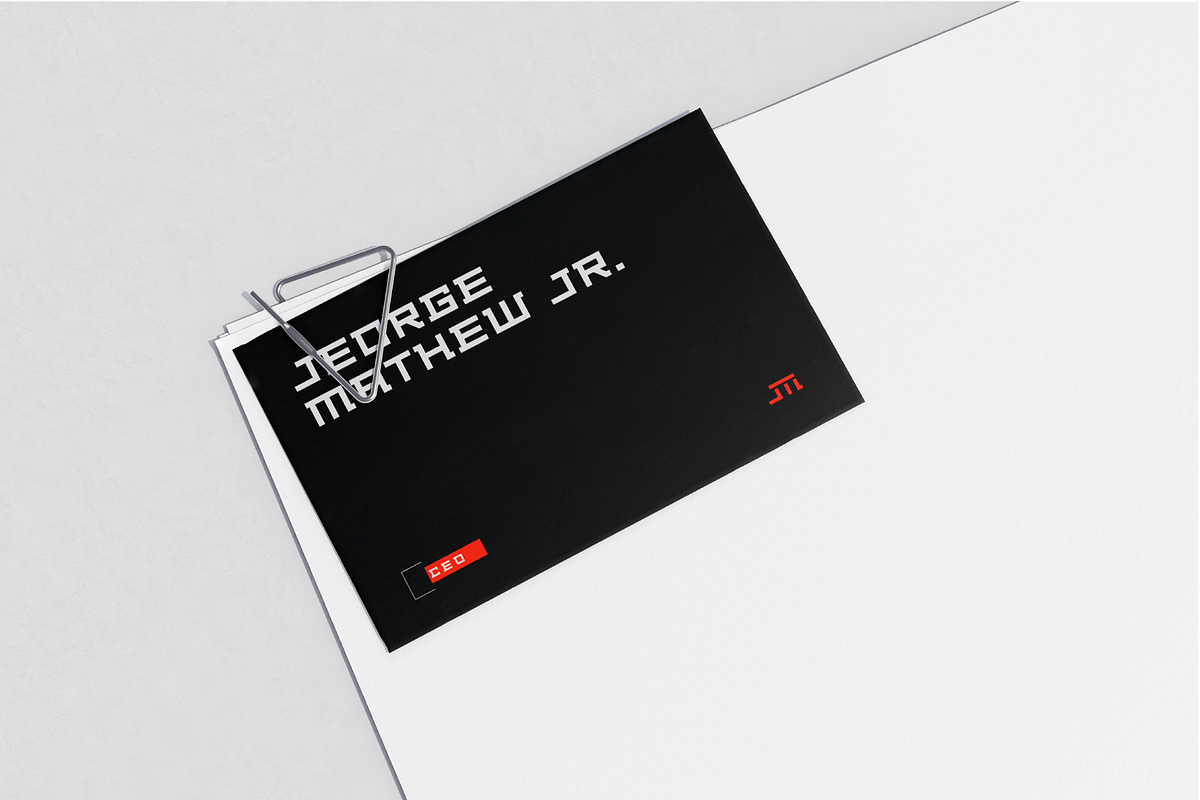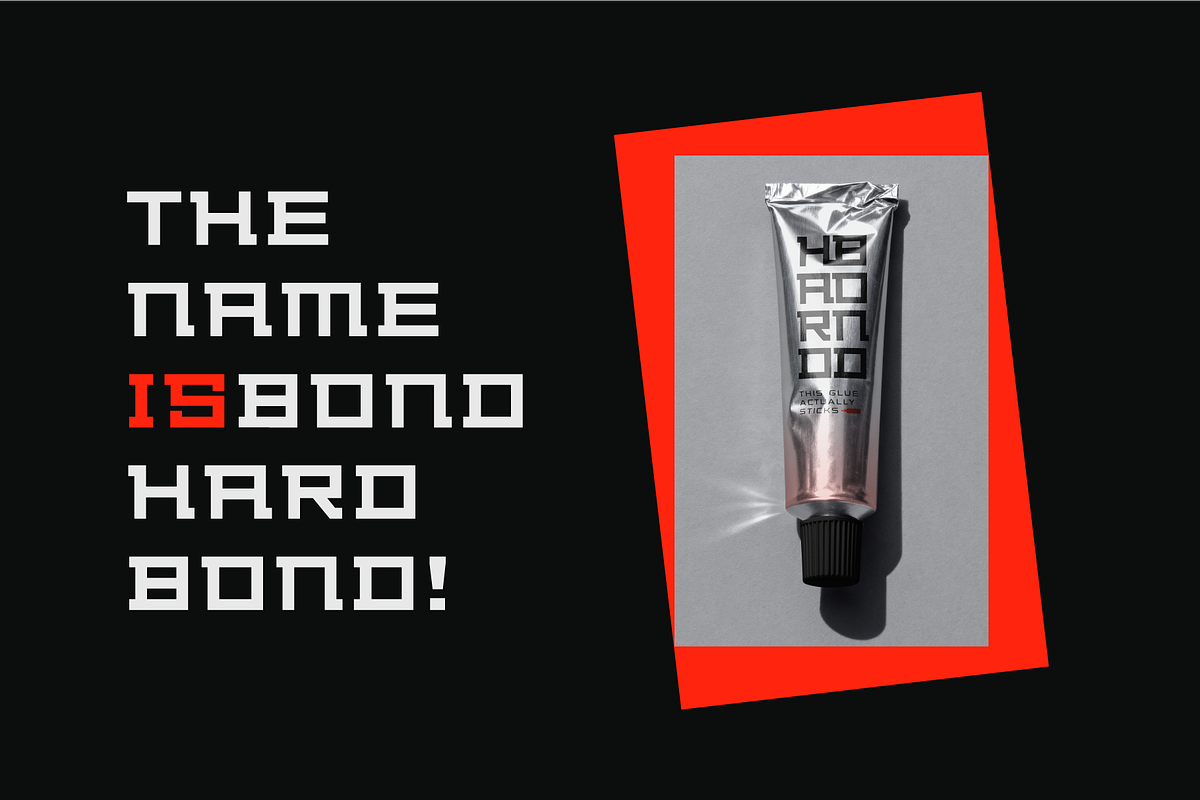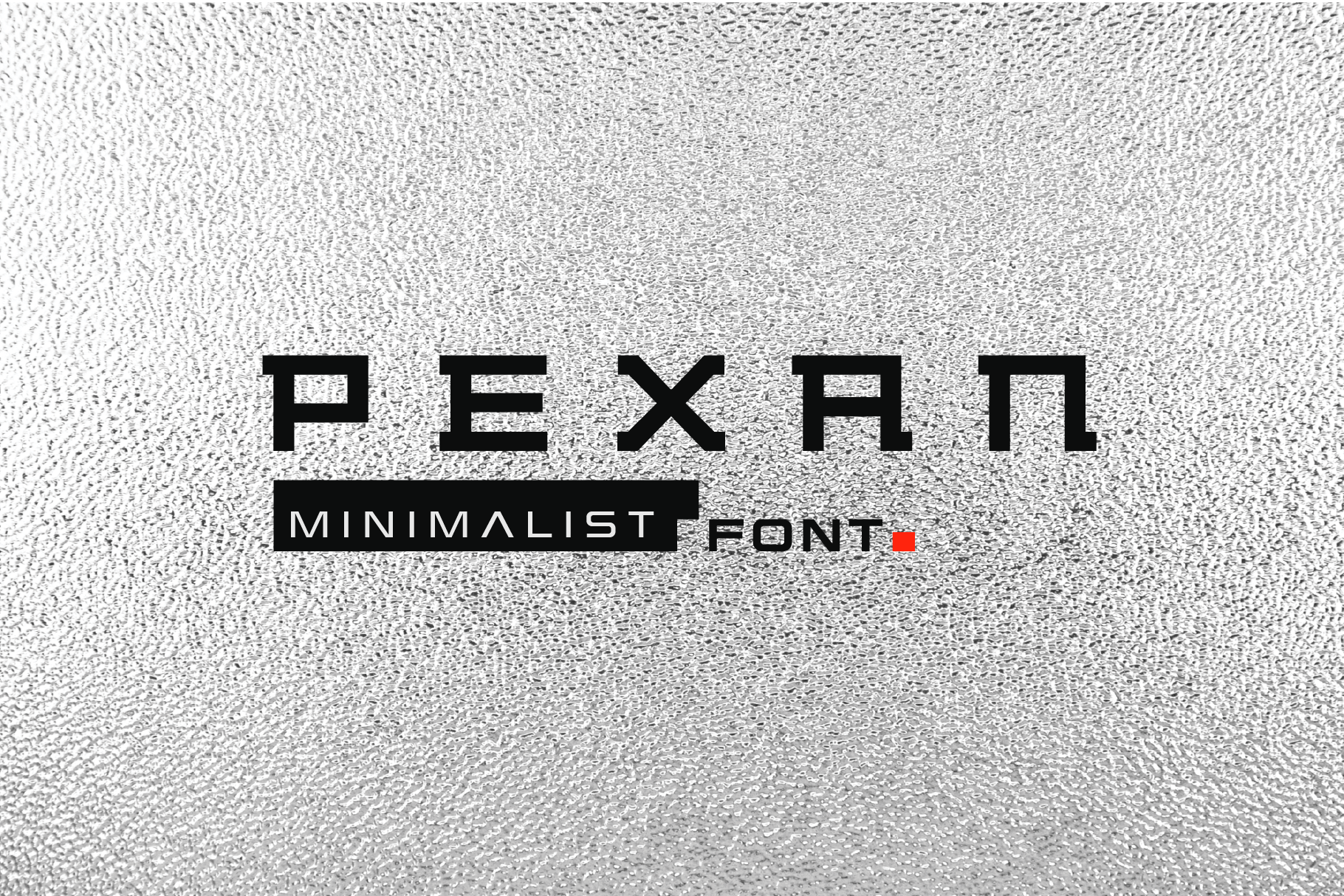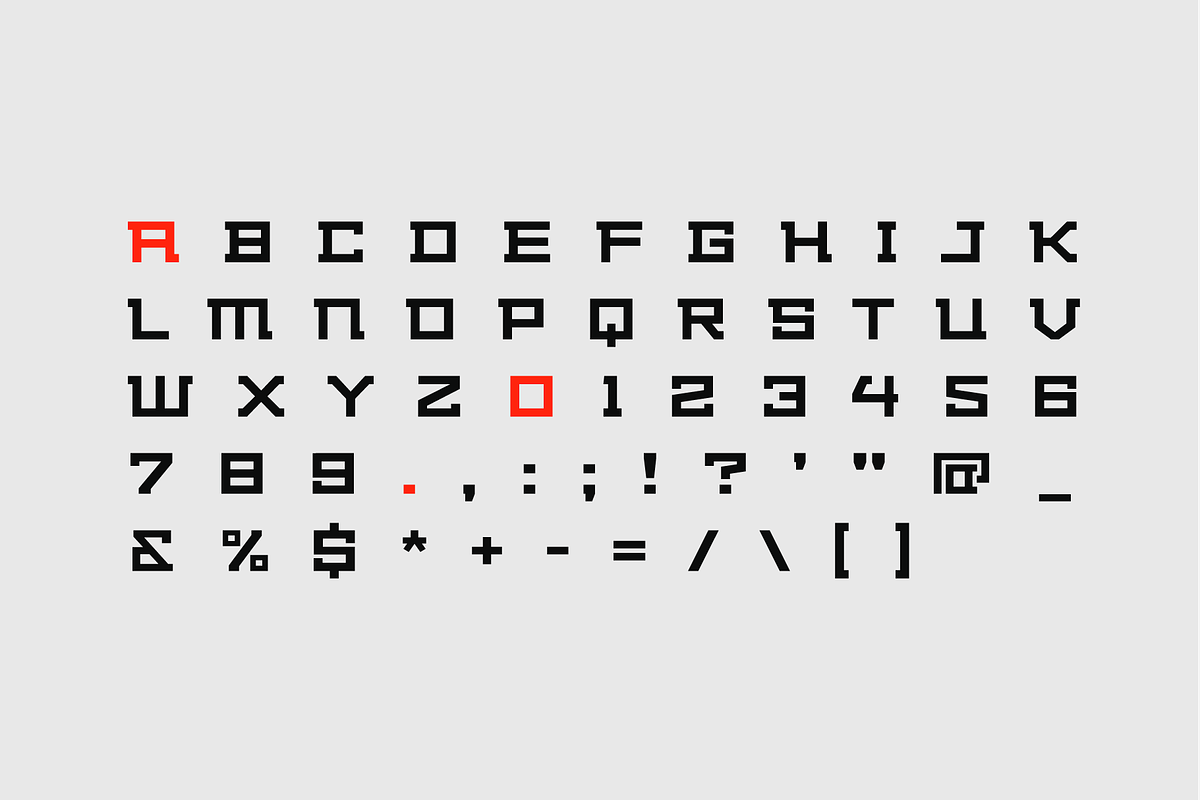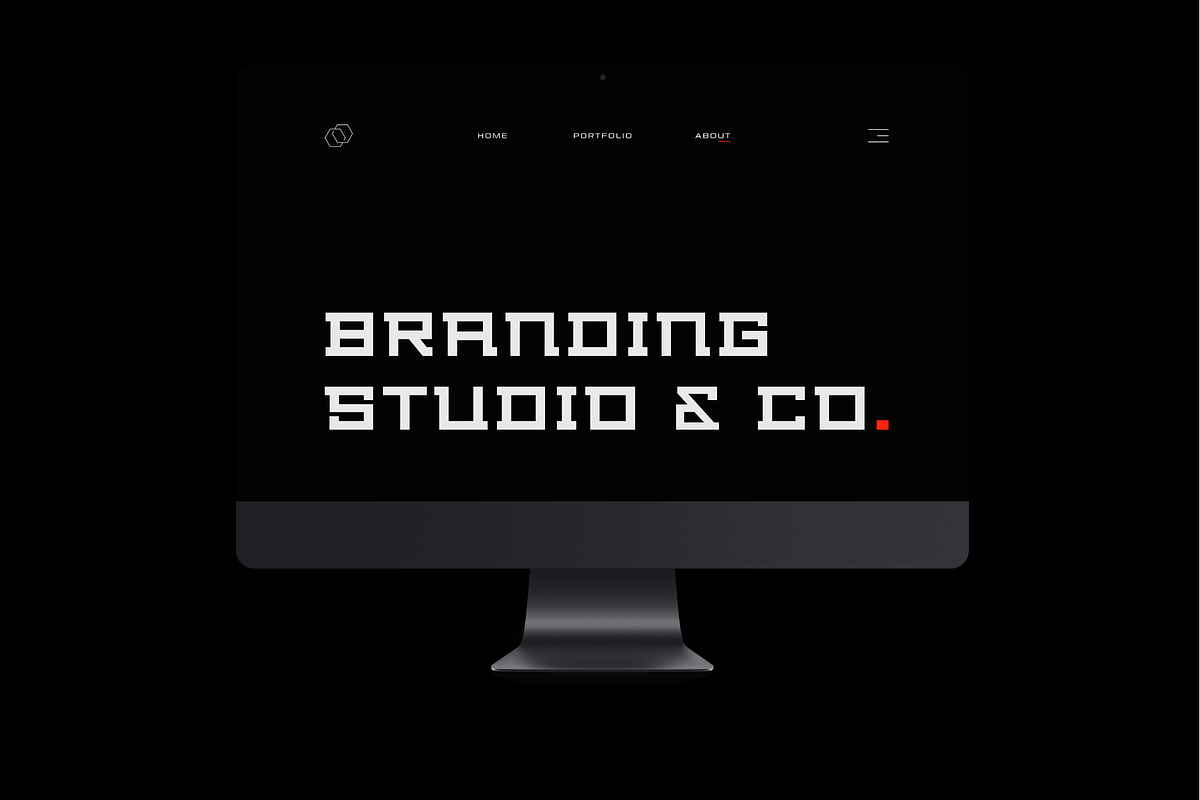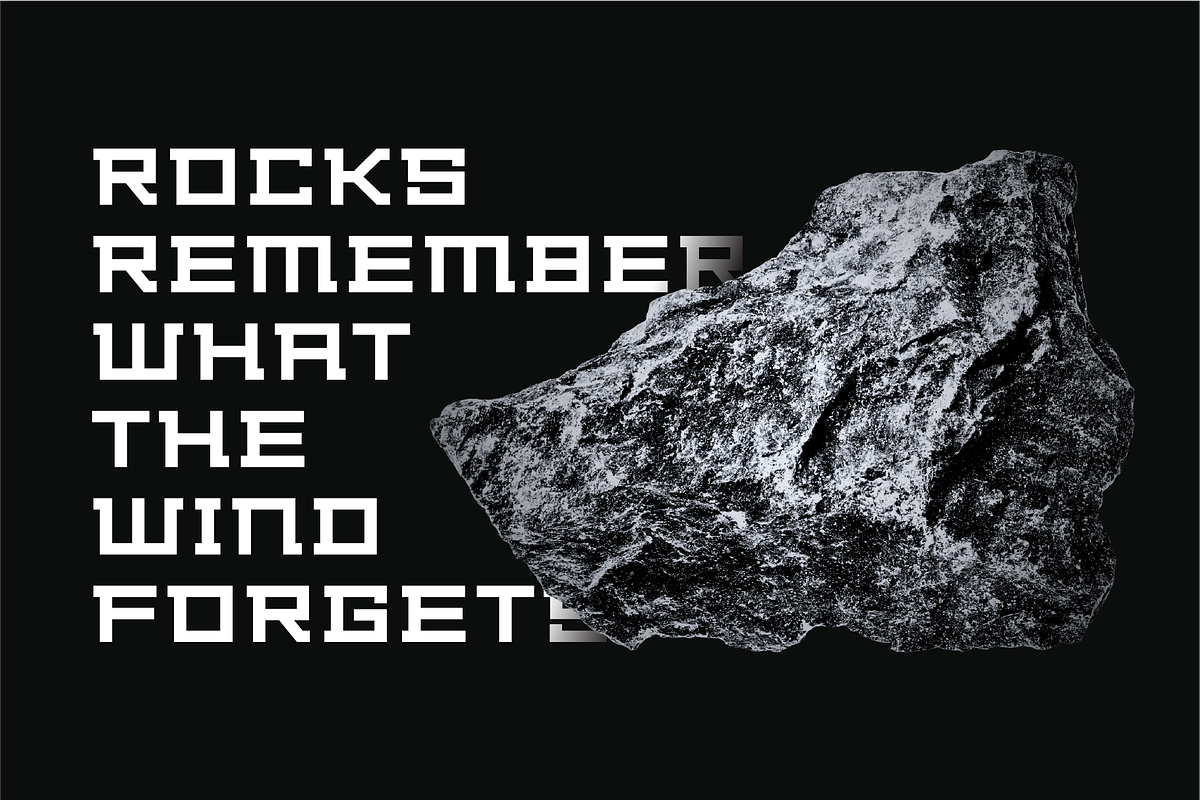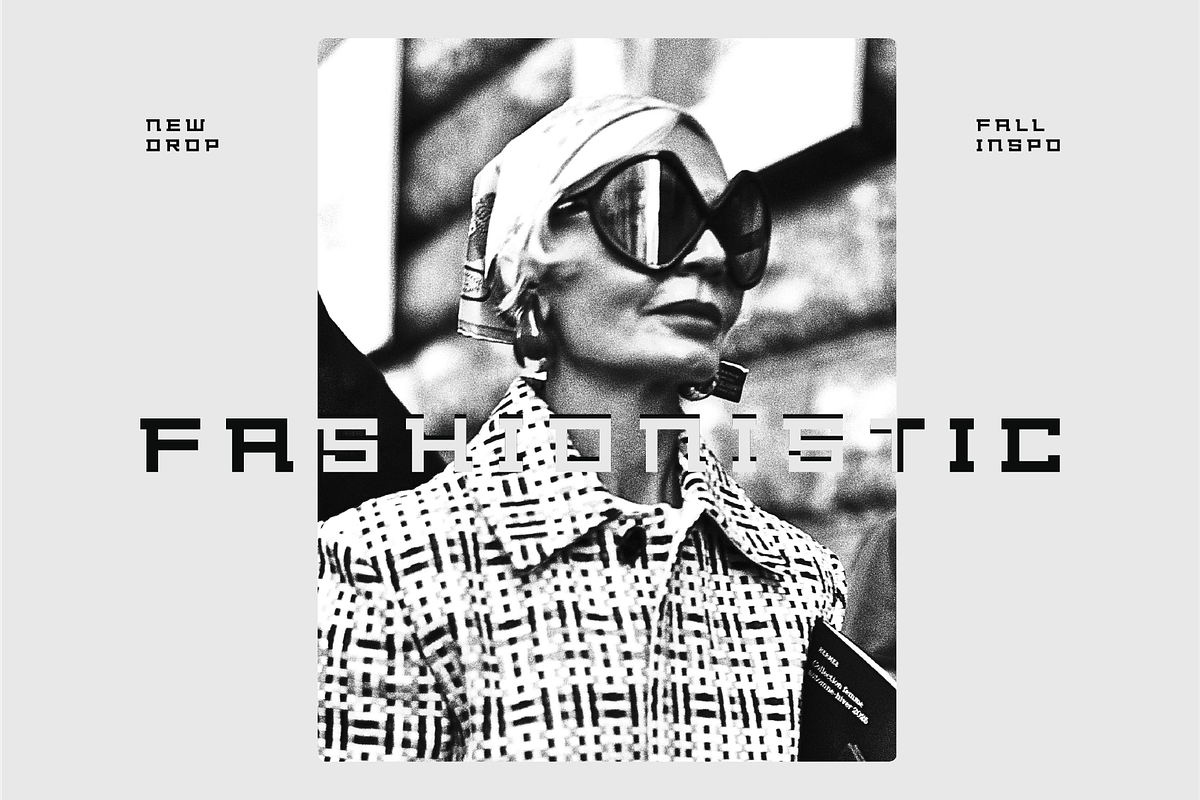
Pexan-Blocky Minimalist Font
Pexan is a bold, square-cut minimalist typeface designed for creators who want their typography to make a clear, impactful, and structured impression. Built on a strict geometric grid, each character carries a sharp, industrial rhythm, making the font instantly recognizable in any layout. Its blocky forms, tight mechanics, and subtle futuristic undertone make this blocky font your go-to choice for branding, editorial headlines, fashion visuals, tech interfaces, packaging, posters, and so on.